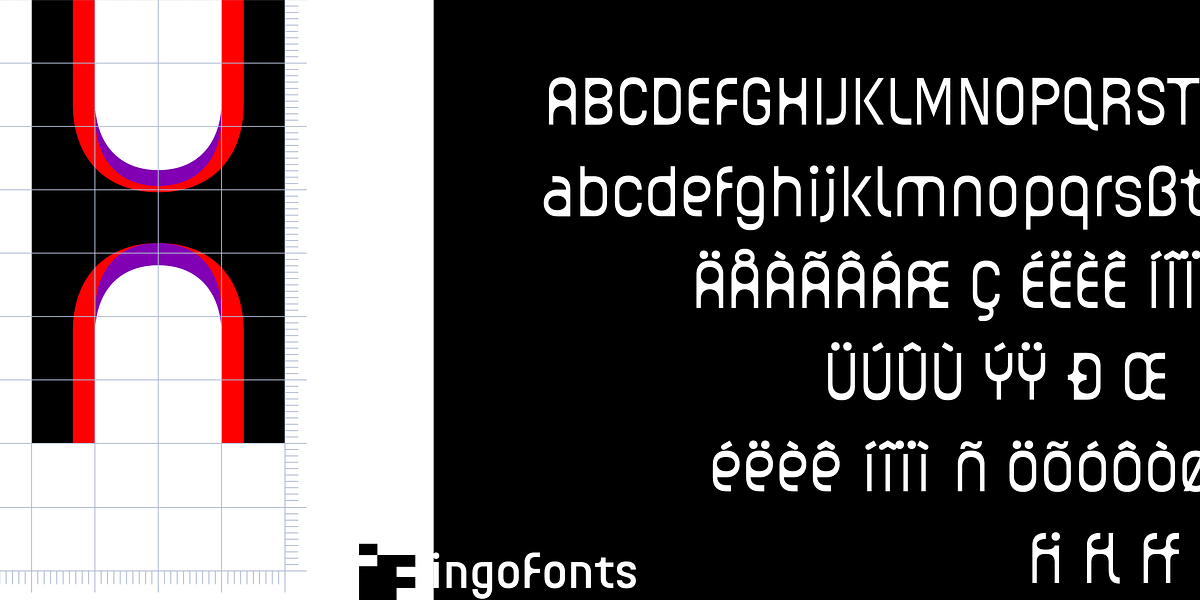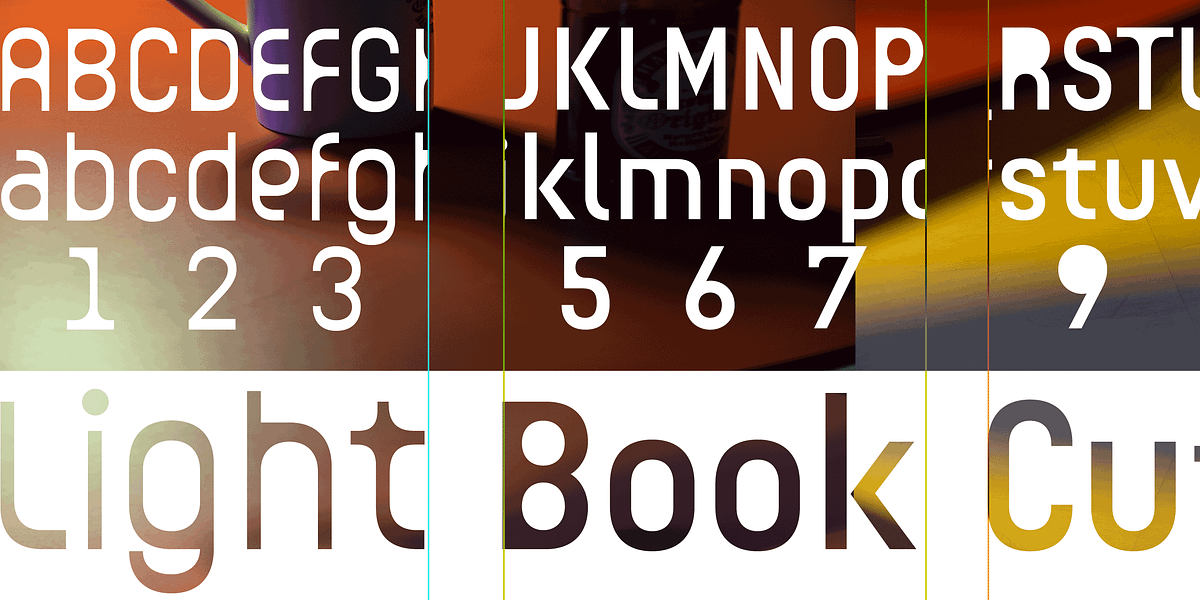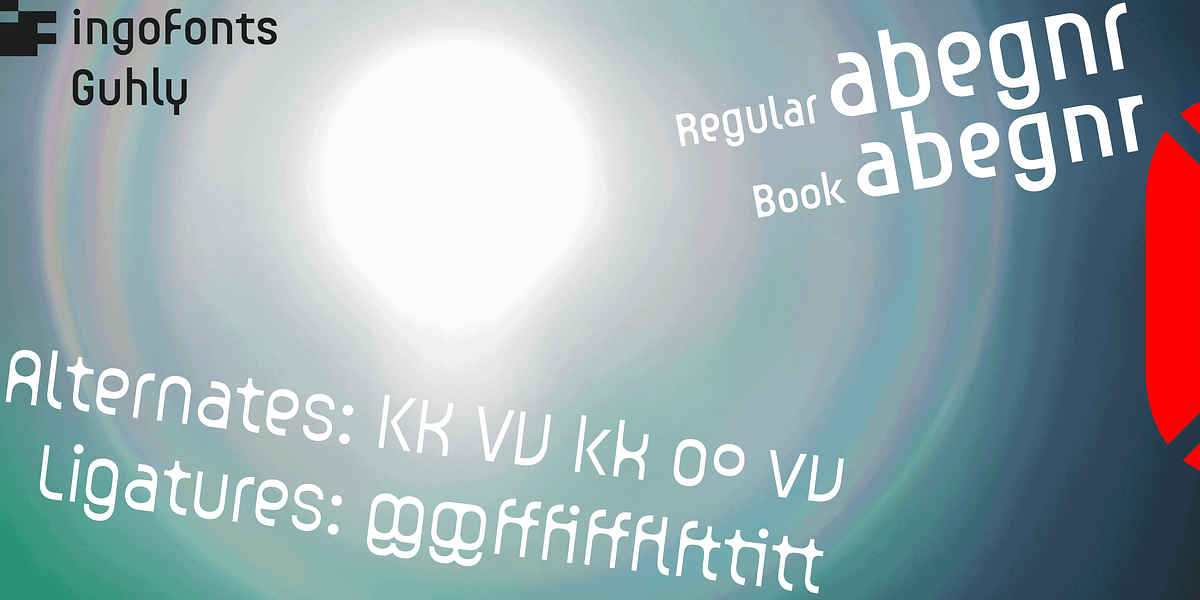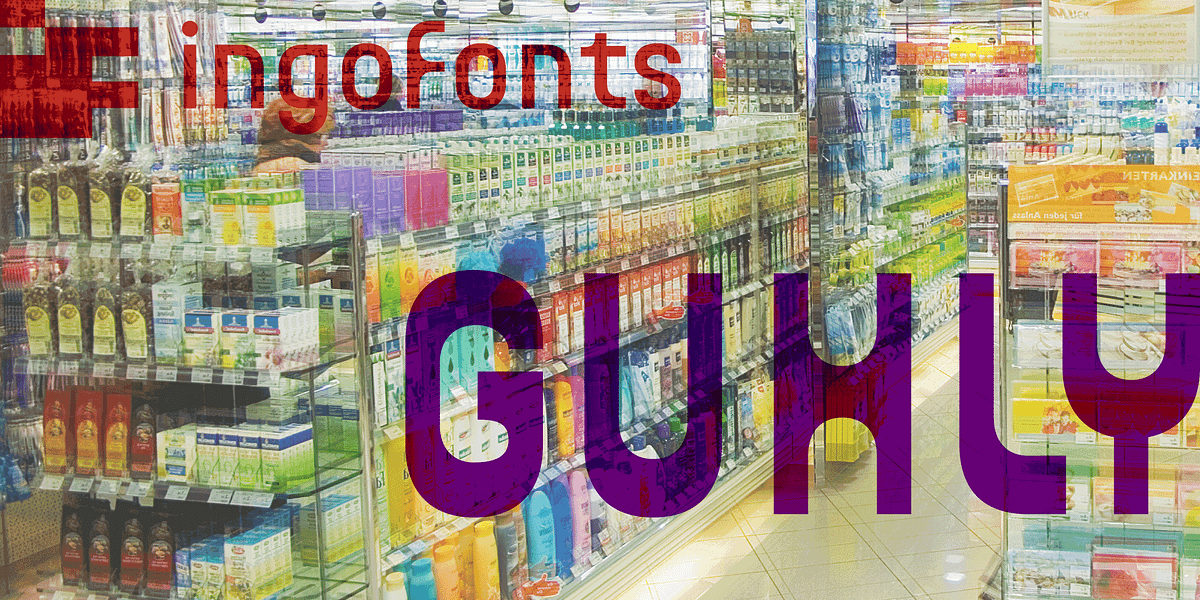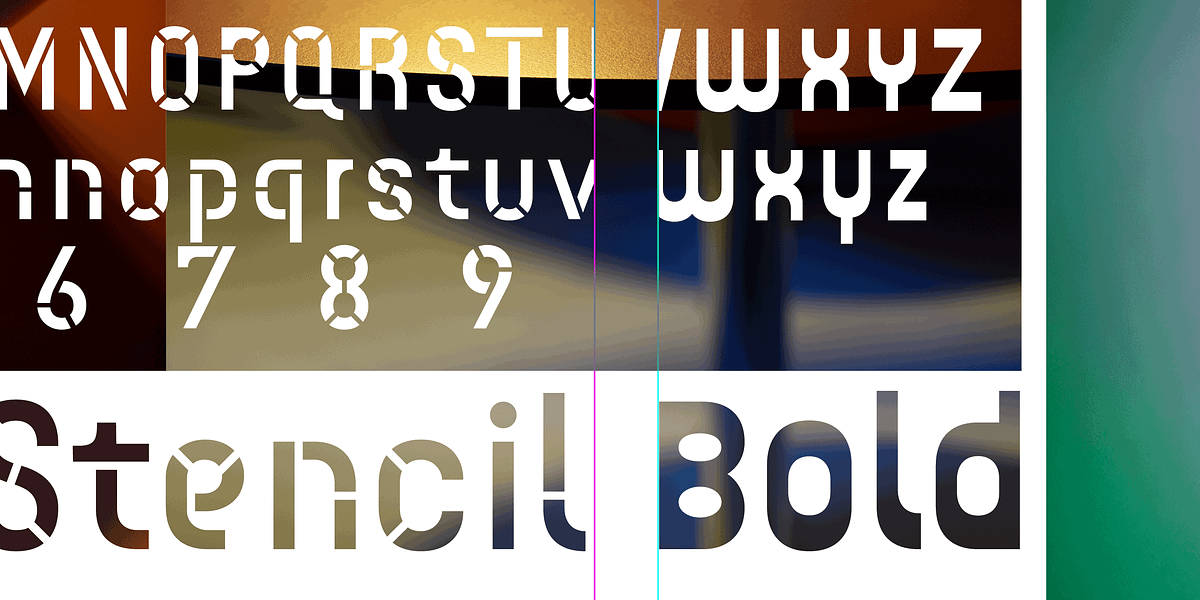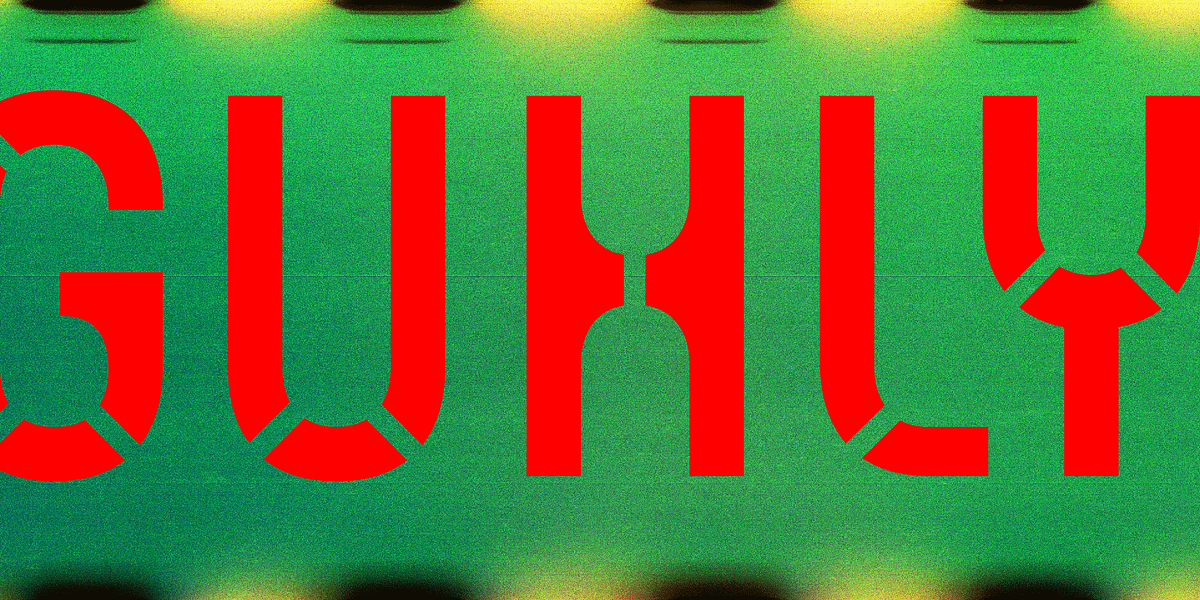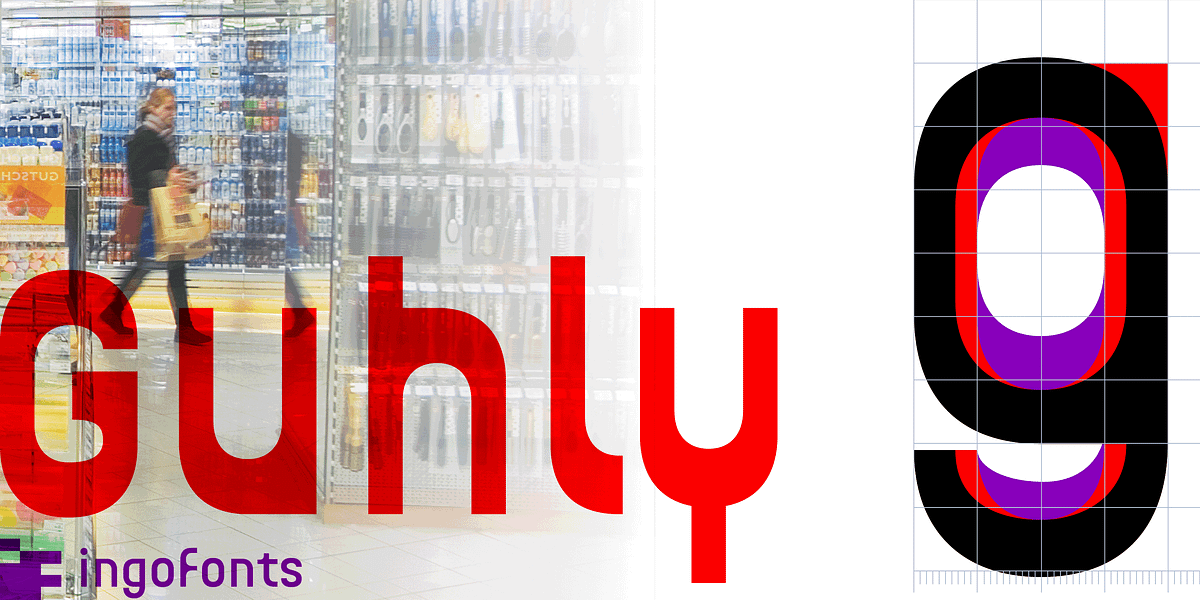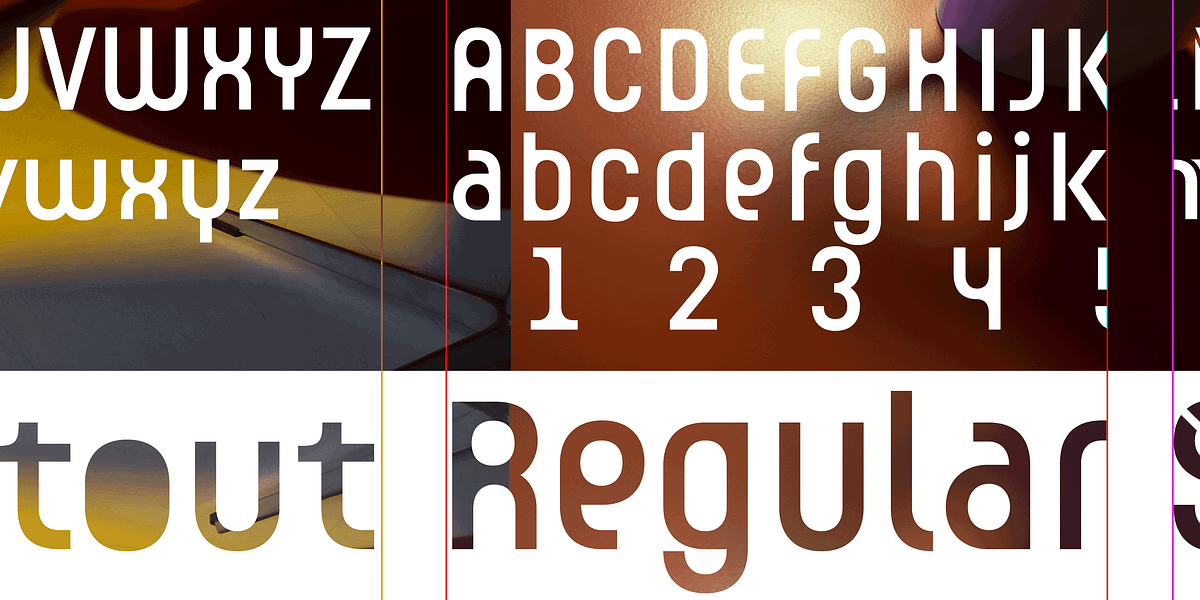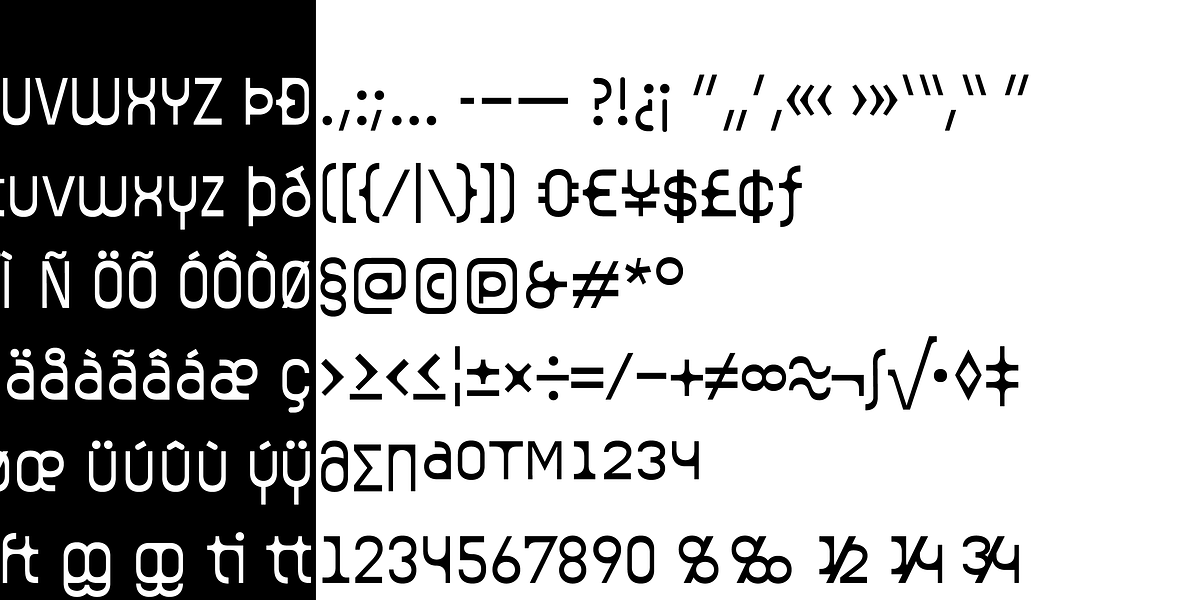
Guhly
This geometric sans serif font is characterized by its slim forms and nearly equally wide characters. Its design is inspired by a shampoo bottle, resulting in prominent, clearly constructed forms with circular arcs. While the all-caps version excels in headlines and display use, a lowercase version optimized for readability in longer texts is also available.